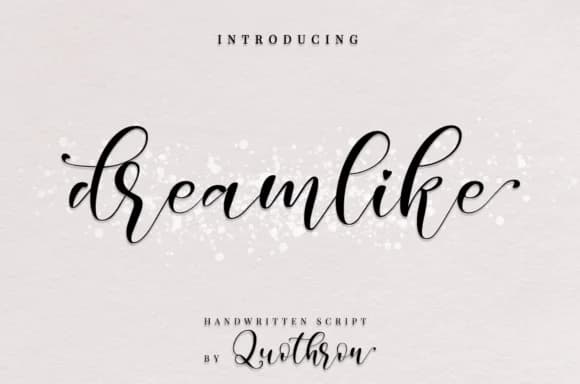
Picture yourself designing a wedding invitation suite where every detail needs to feel intentional. You want a script that suggests handwriting but doesn't sacrifice readability or polish. That's where Dreamlike Script Font by it_was_a_good_day shines. This typeface captures the control you need, delivering genuine warmth without the sloppiness that makes many handwritten styles feel unfinished.
What makes Dreamlike work across so many applications is its balanced letterform structure. The characters flow naturally without being overly decorative, making it perfect for custom stationery where sophistication matters. Designers consistently reach for it when building upscale greeting cards, luxury brand identity systems, and high-end packaging that calls for a personal touch. You'll also find it invaluable for Etsy product labels on artisanal goods, custom envelope designs for boutique businesses, and DIY wedding day signage that needs more refinement than typical display fonts provide.
The script maintains its clarity whether you scale it large for heading text or use it smaller for supporting details. Its consistency across different sizes means you can build entire design systems around it without losing character or legibility. The natural letterform flow ensures smooth transitions between characters at any point size. Grab it from Creative Fabrica and discover how it transforms projects needing handmade authenticity with genuine professional polish.
- Elegant, Flowing, Dreamlike
Dreamlike Script Font is a script font that shines as a display or heading face. Pair it with a clean sans-serif or serif font for body text β the contrast creates a clear hierarchy while the two styles stay balanced and easy to read.